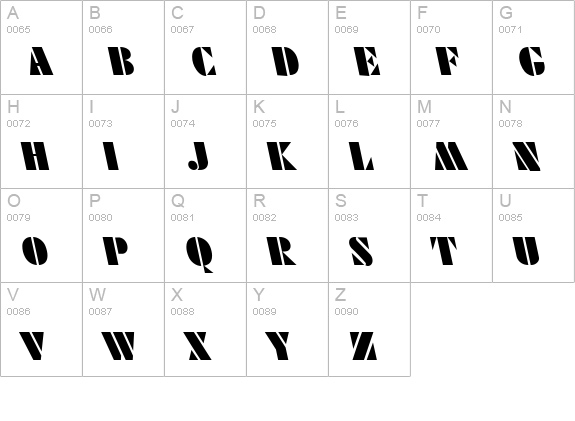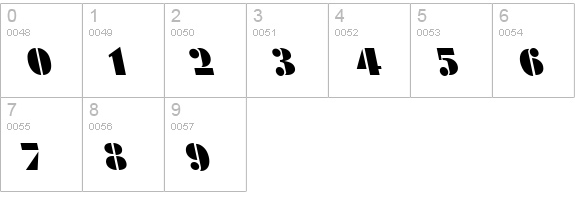
FuturistLeftyBlack Regular Font Details
FuturistLeftyBlack Regular is the standard, neutral variant in the FuturistLeftyBlack typeface family \xE2\x80\x94 well suited to general body text, paragraphs, and standard typographic work.
FuturistLeftyBlack Regular font is a bold and dynamic typeface that exudes a sense of modernity and innovation. With its sleek lines and futuristic design, this font is perfect for making a statement in any project or design. The sharp edges and strong presence of FuturistLeftyBlack Regular make it a standout choice for headlines, titles, and branding materials. This font is freely available to download at FontsMarket.com, making it accessible to designers and creatives looking to add a touch of edginess to their work. Whether you're designing a poster, creating a logo, or crafting a unique social media graphic, FuturistLeftyBlack Regular is sure to make a bold impression. Grab your free download today and elevate your designs with this striking typeface.